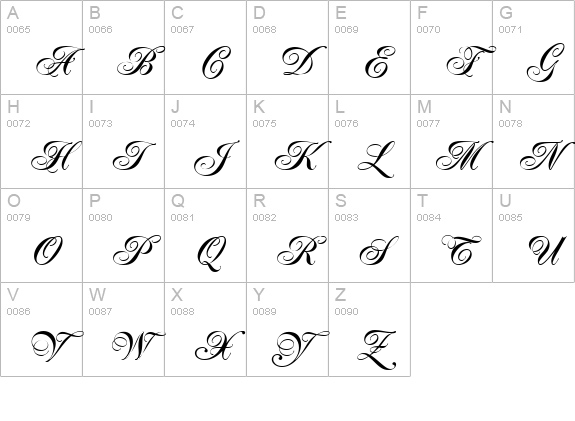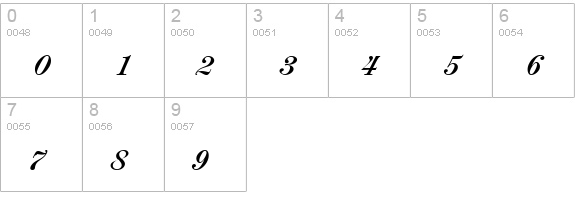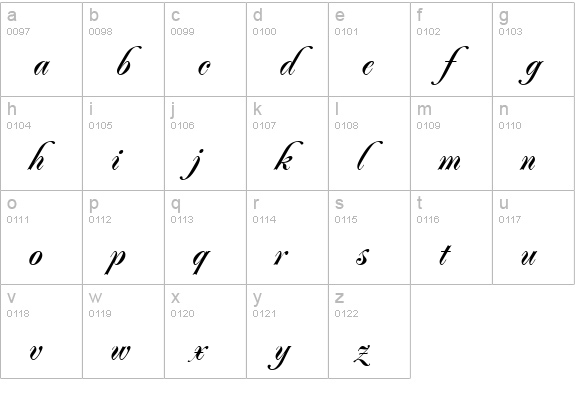
Poppl-Residenz Regular is the standard, neutral variant in the Poppl typeface family \xE2\x80\x94 well suited to general body text, paragraphs, and standard typographic work.
Poppl-Residenz Regular font is a timeless and elegant typeface that exudes sophistication and class. Its classic yet modern design makes it perfect for a wide range of design projects, from wedding invitations to business cards. The clean lines and graceful curves of this font add a touch of refinement to any text it adorns. The best part? Poppl-Residenz Regular font is available for free download at FontsMarket.com. This means you can easily access this beautiful font and use it in your designs without any cost. Whether you're a professional designer or a hobbyist looking to elevate your projects, Poppl-Residenz Regular font offers a high-quality and stylish option that won't break the bank. Download it today and add a touch of sophistication to your next design project.